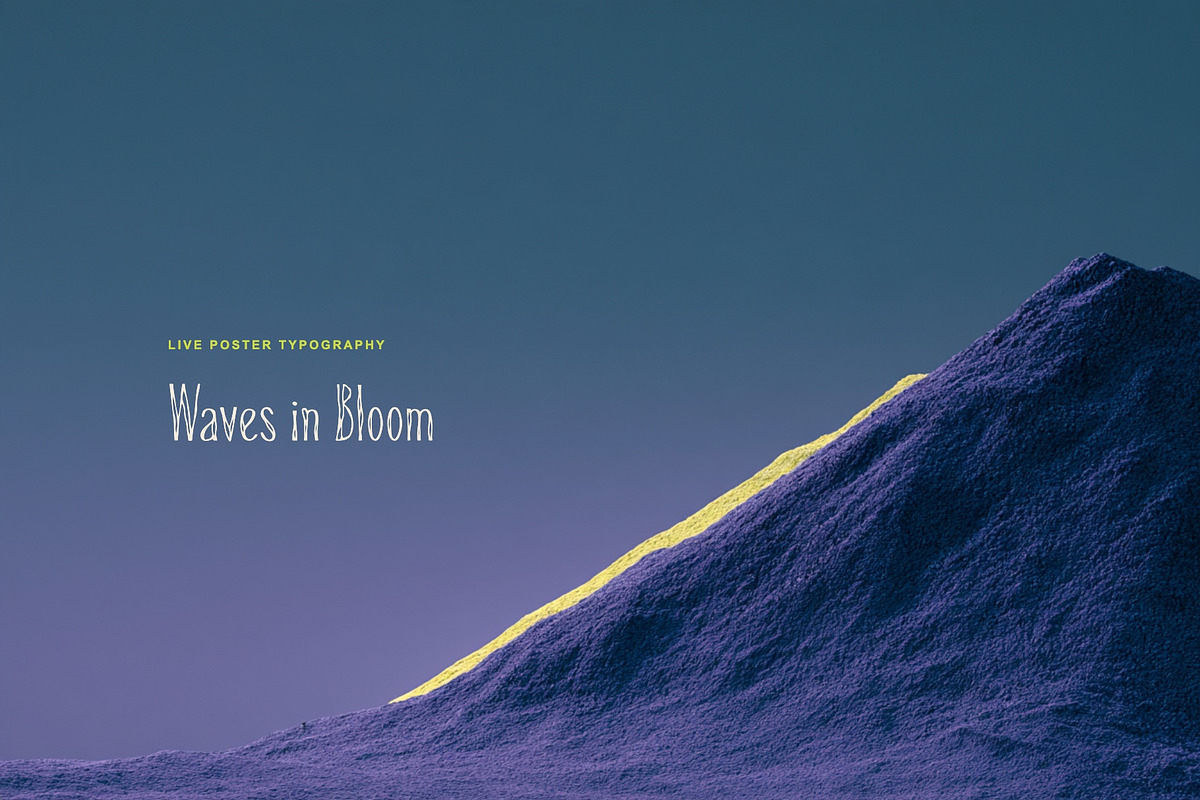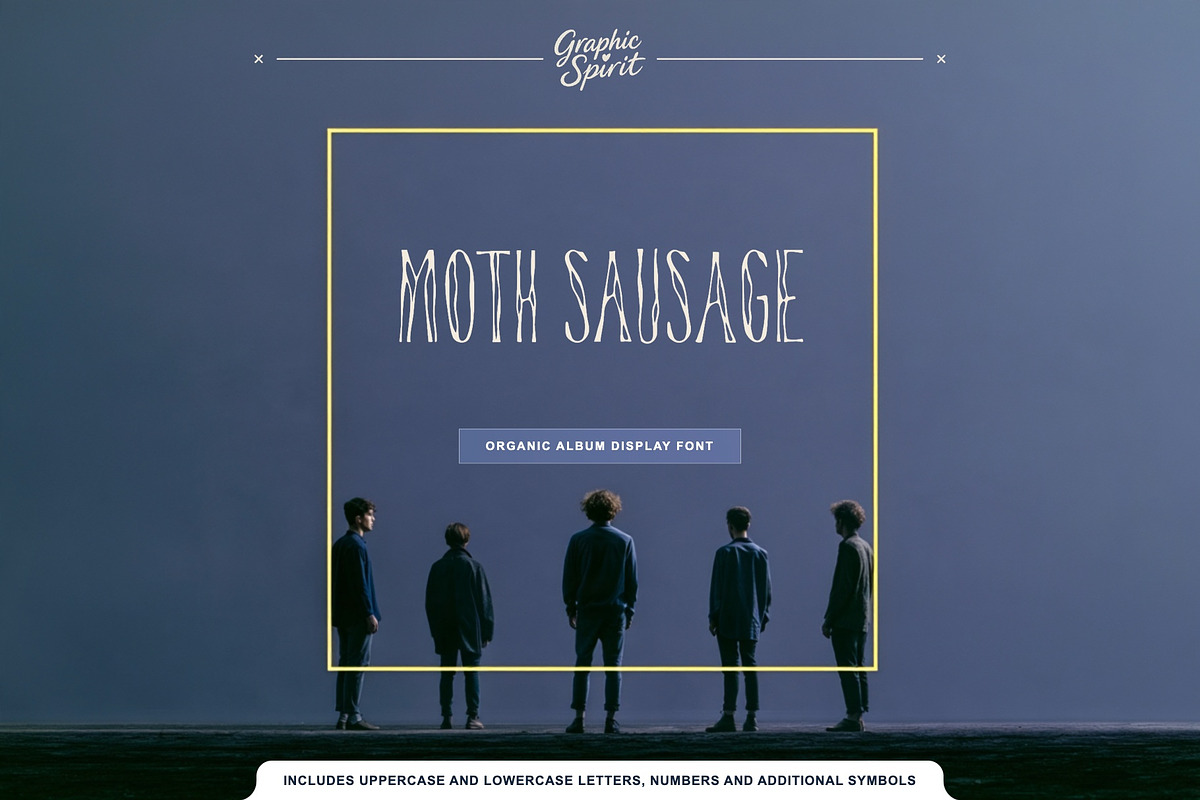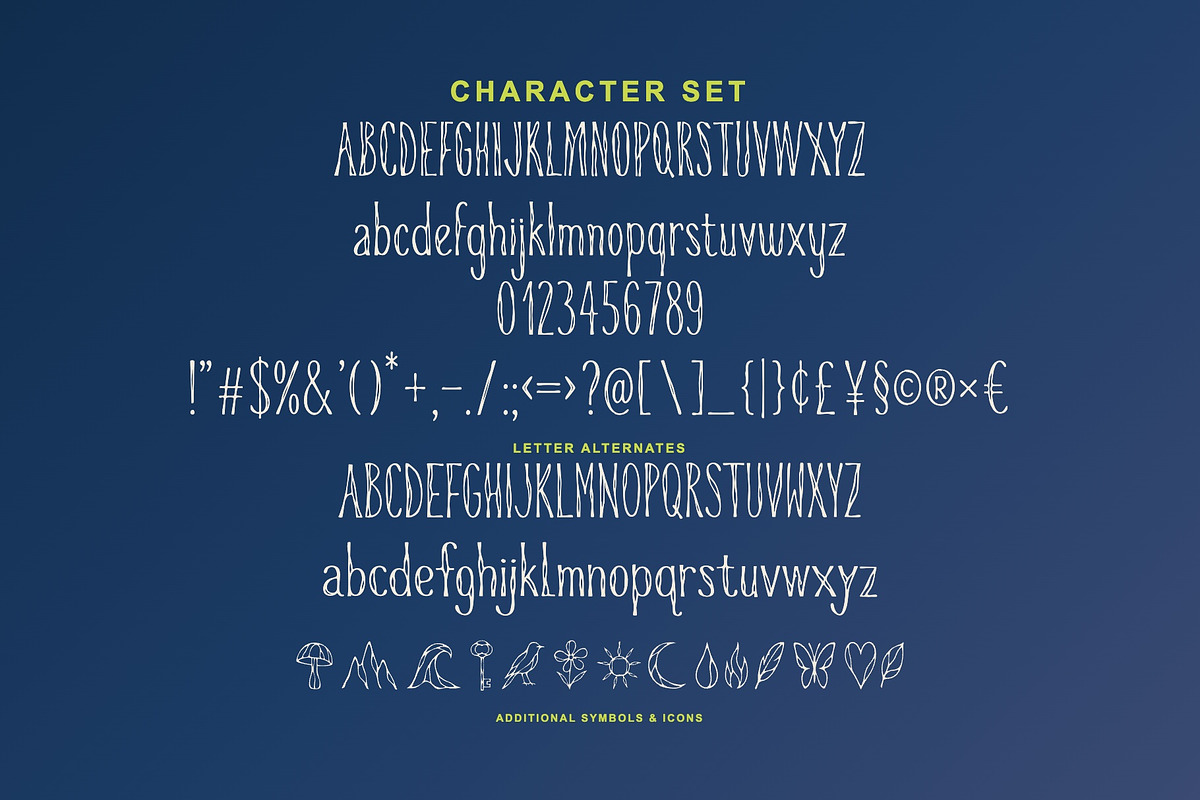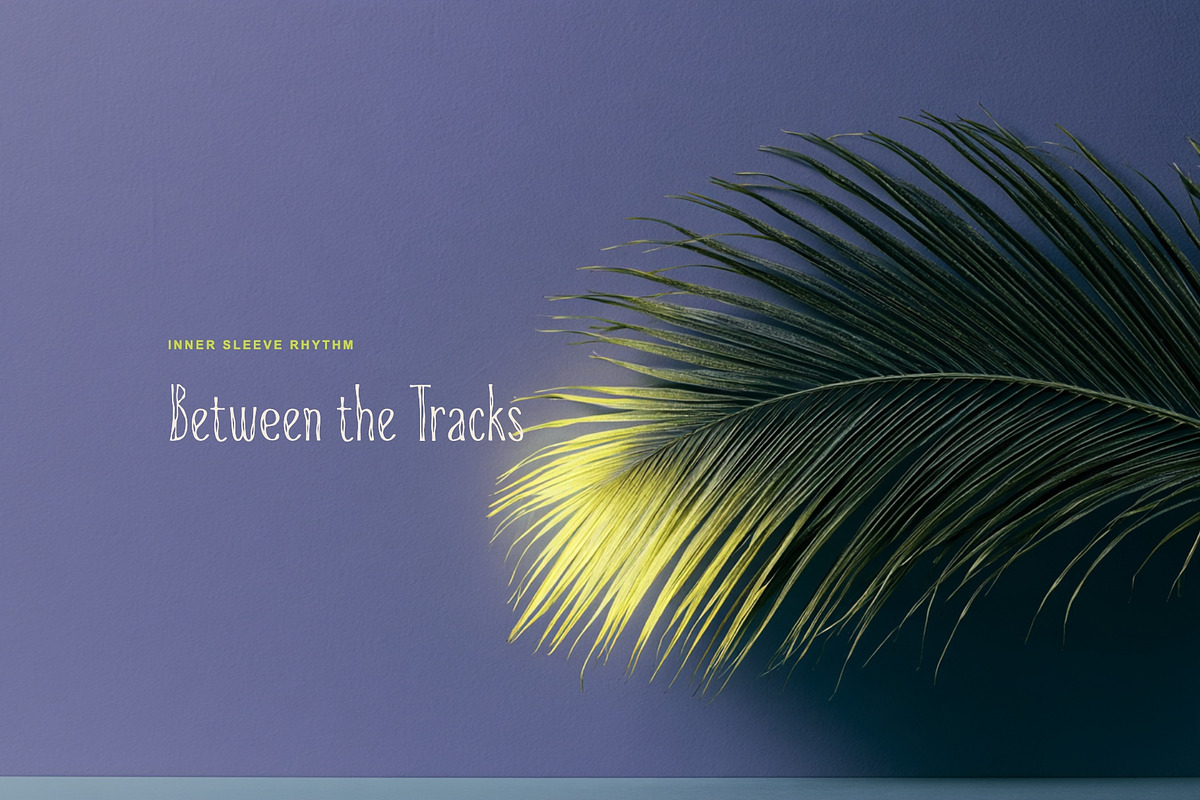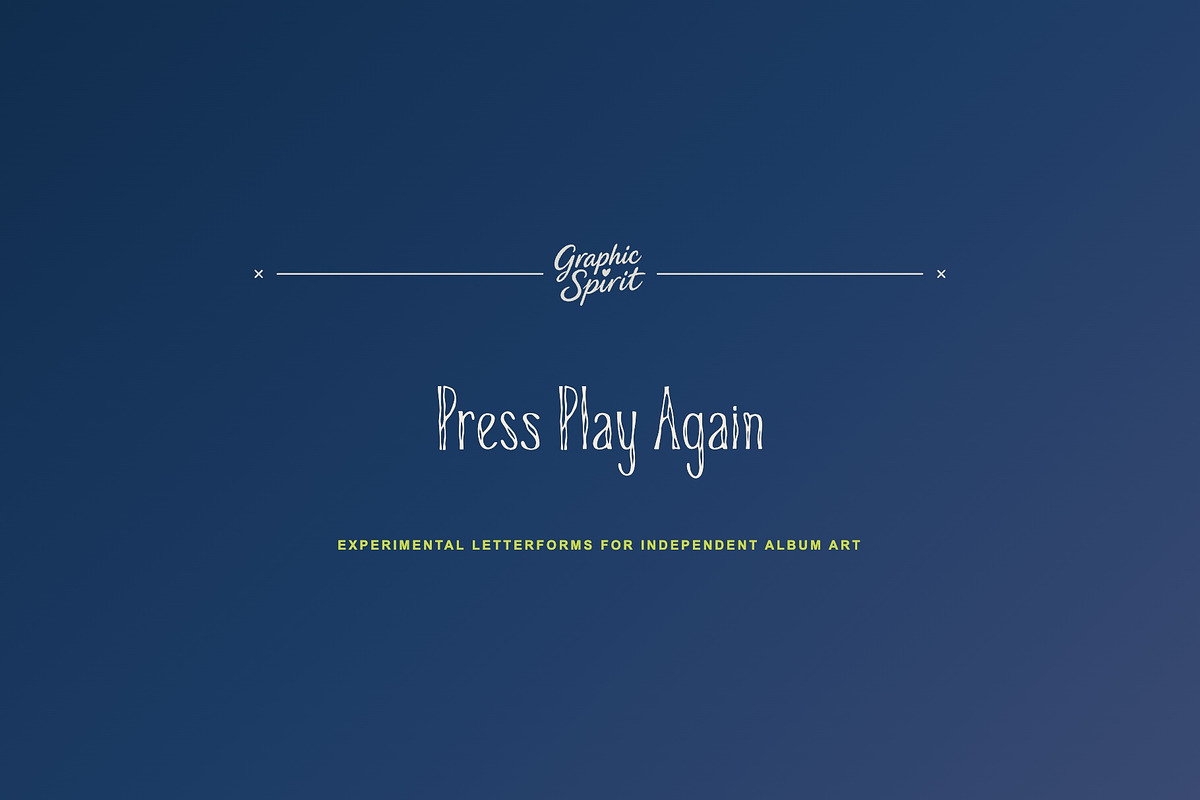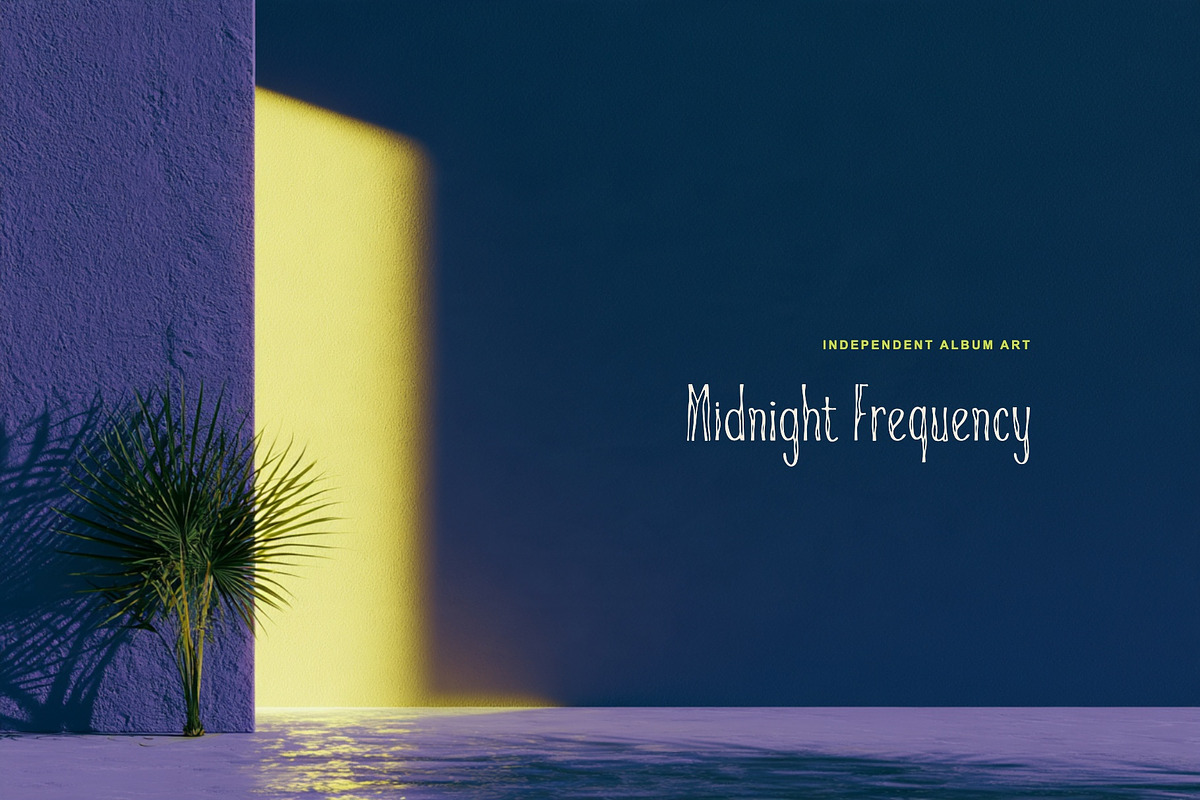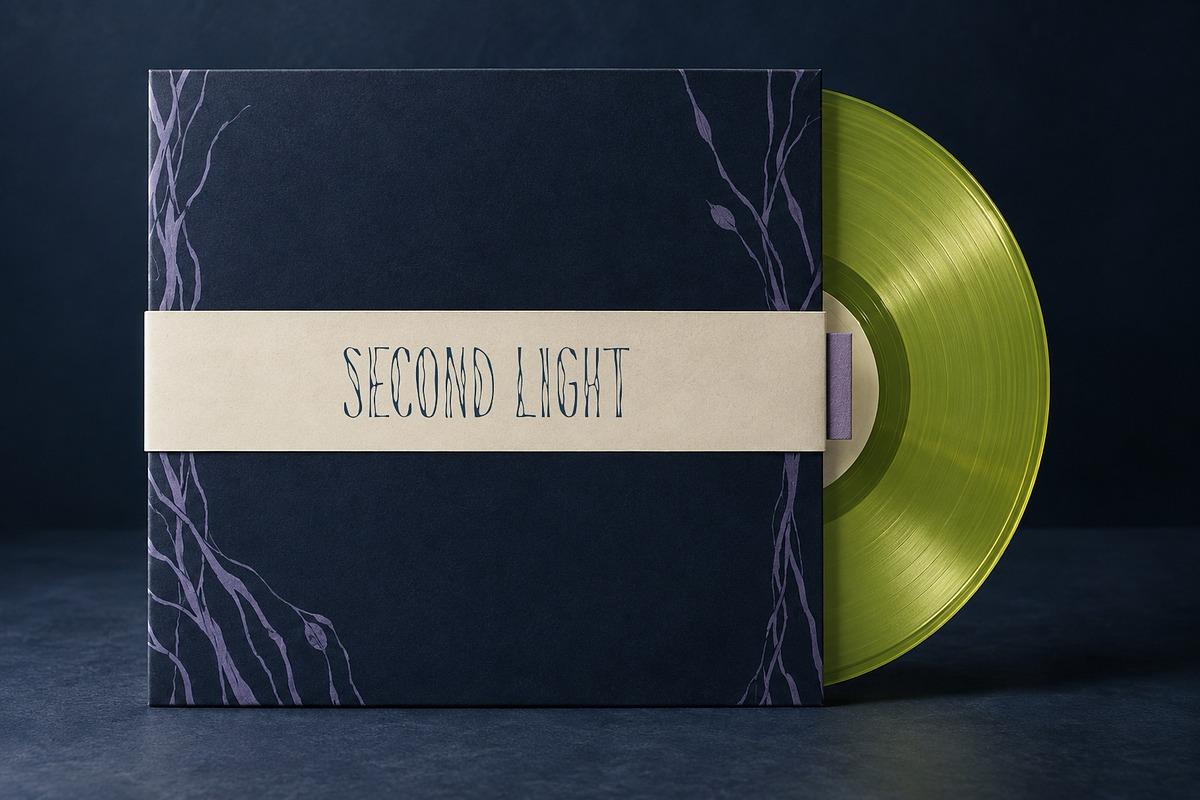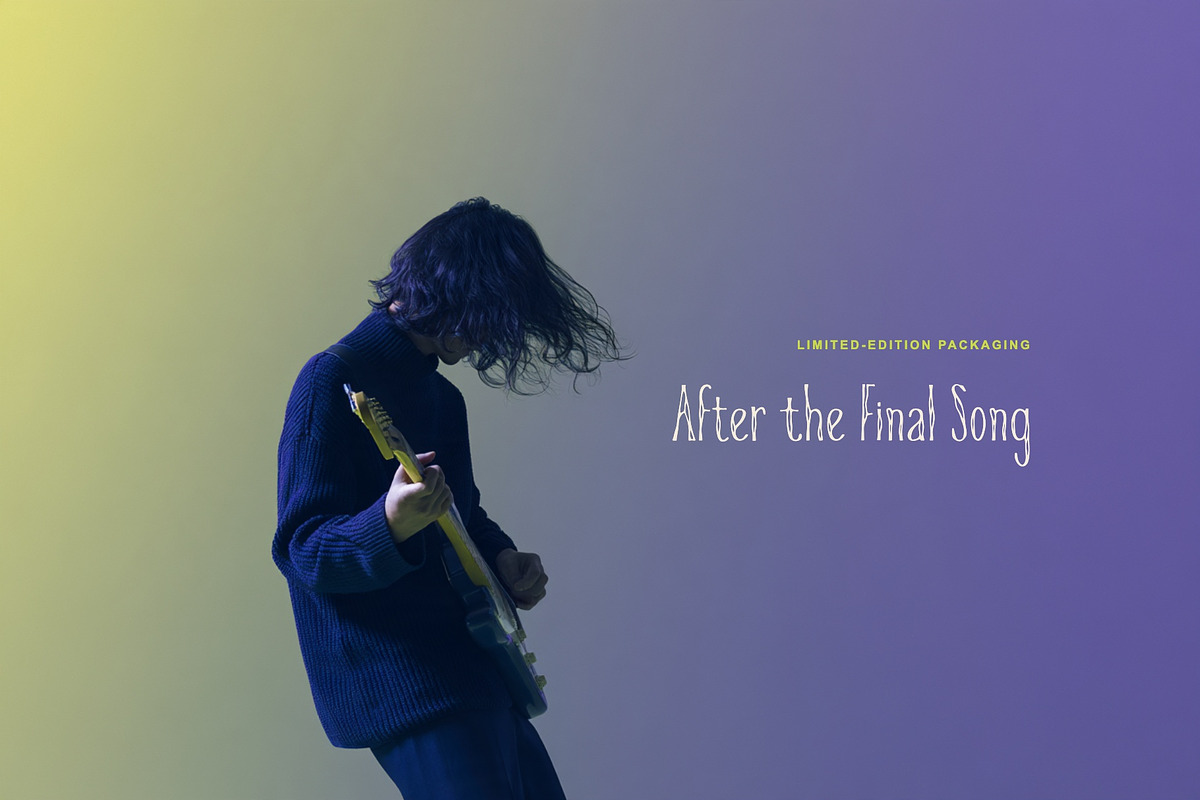
Moth Sausage Album Display Font
🎙️ 📀 🖤 ✨ Moth Sausage is a organic album display shaped by independent editorial confidence and offbeat human rhythm. It was created for designers and independent brands looking for expressive display typography that feels specific rather than generic.
🎨 The font works beautifully across album covers, music posters, fashion editorials, limited packaging, independent branding. Use it for a confident headline, a memorable product name, or a typographic accent that ties a visual identity together. 💫
🌟 Best for:
- 🎙️ Album Covers
- 📀 Music Posters
- 🖤 Fashion Editorials
- 🎙️ Limited Packaging
- 📀 Independent Branding